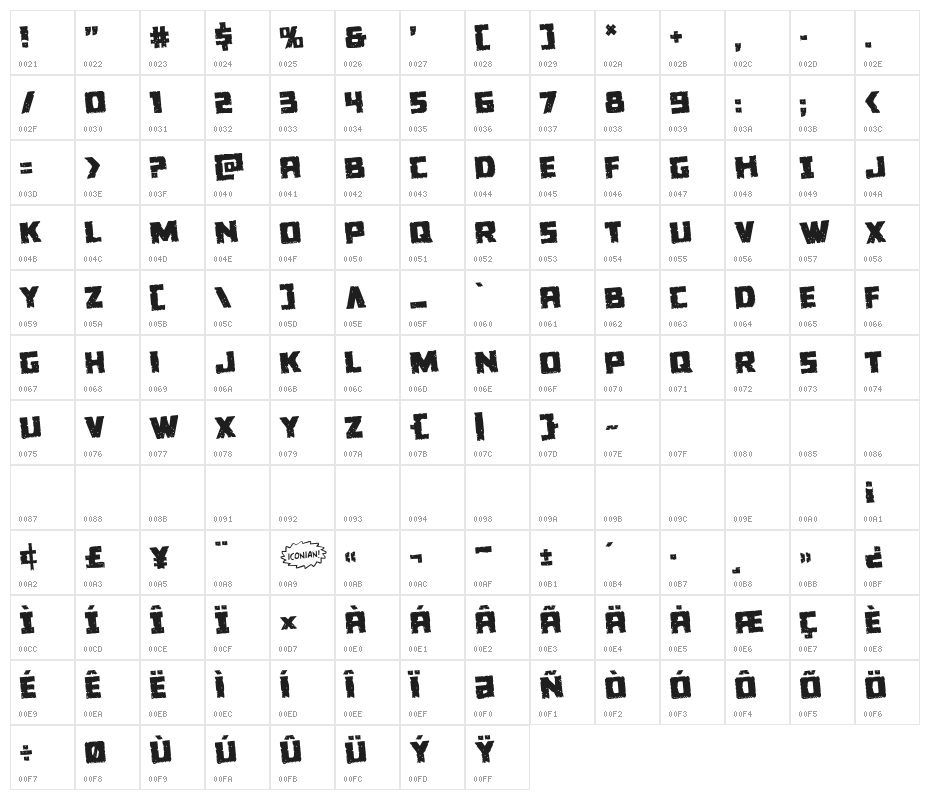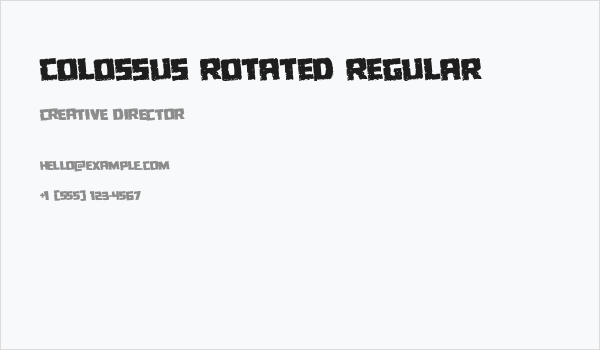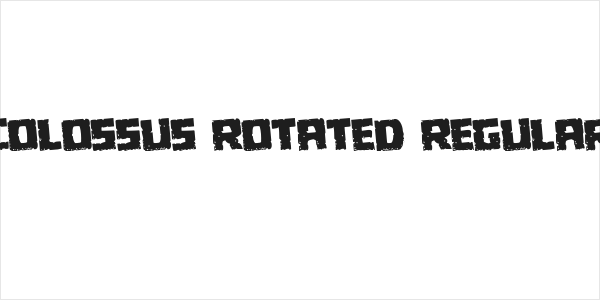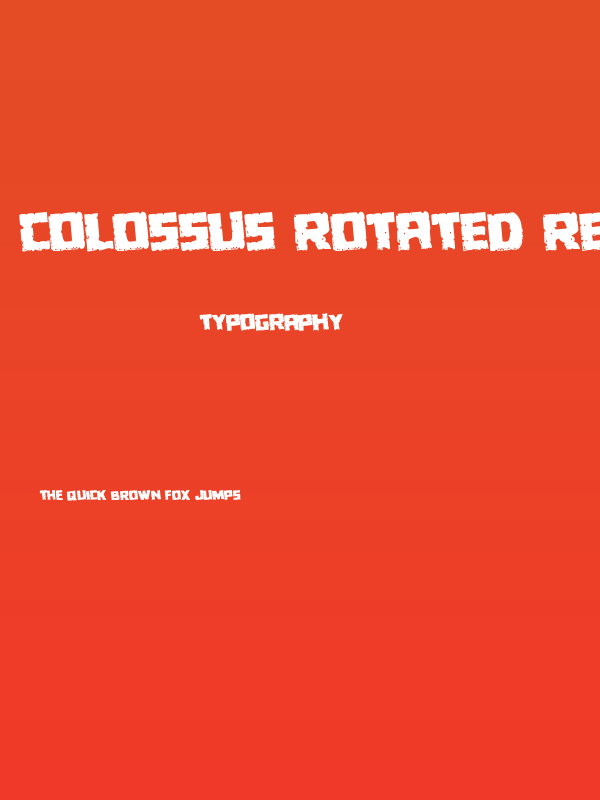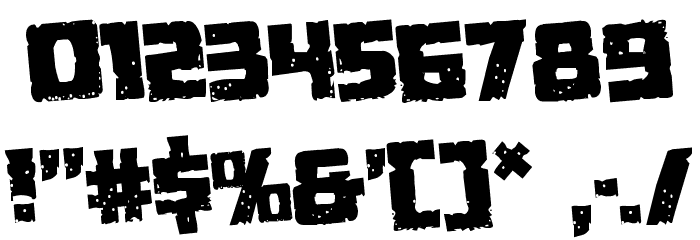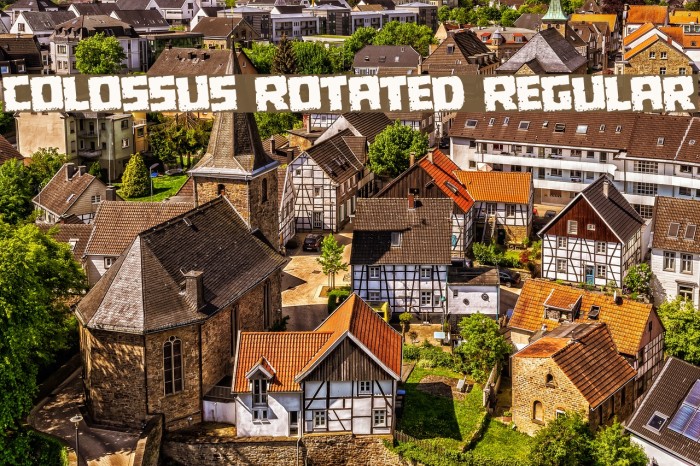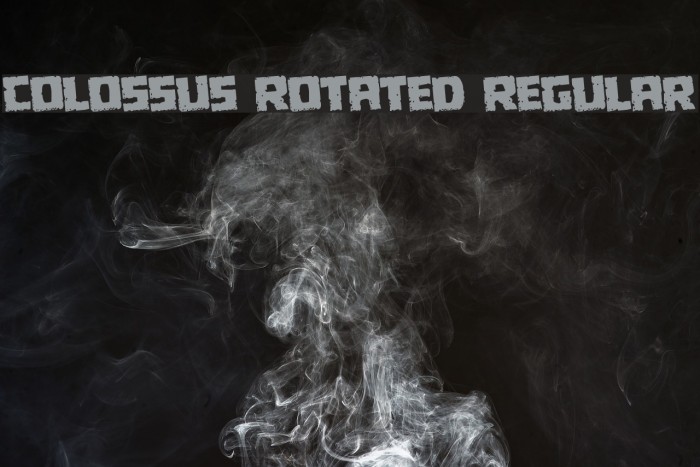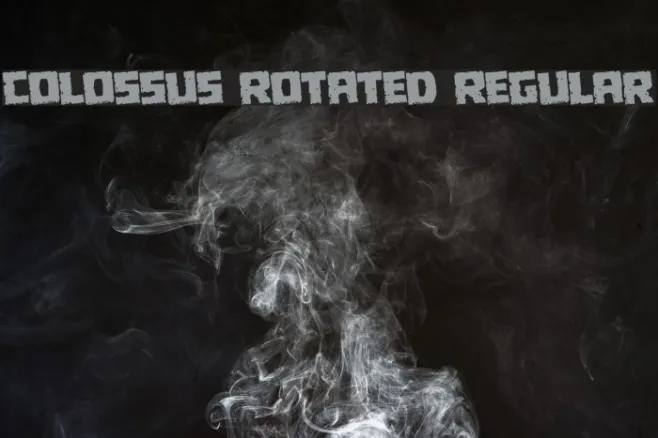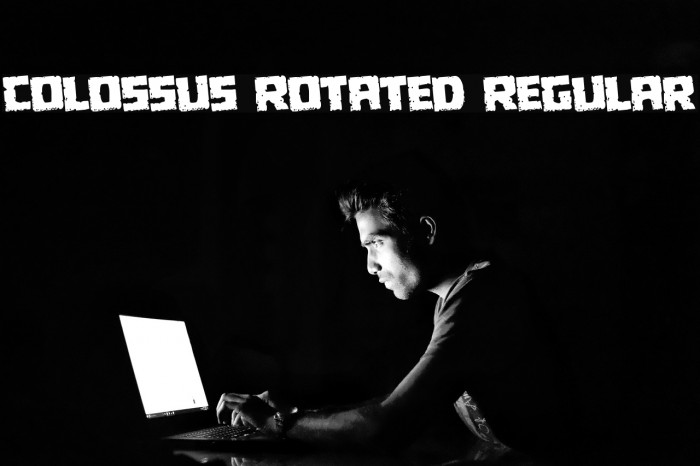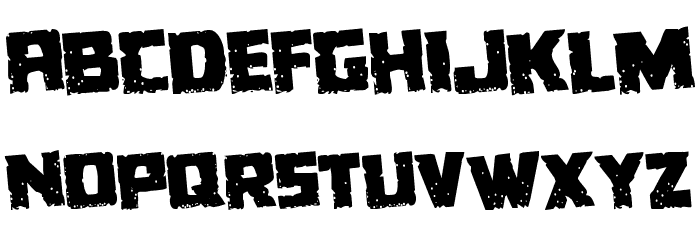
Colossus Rotated Regular Font
Colossus Rotated Regular Description
This font features a bold and rugged design with a distressed texture that gives it a worn, vintage appearance. The characters are blocky and substantial, conveying a sense of strength and impact. Each letter is uniquely textured, adding to the overall distressed look. The font maintains a consistent weight throughout, ensuring readability despite its decorative style. It is well-suited for projects that require a bold statement, such as posters, headlines, or branding materials that aim to capture attention with a gritty, industrial feel.